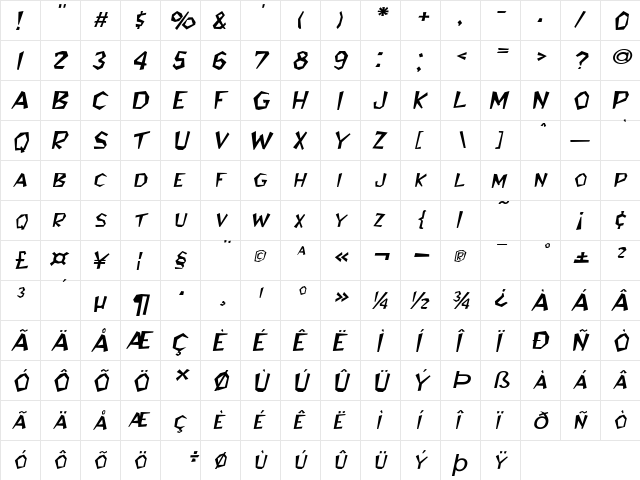
Jitter-Expanded Italic
Design Context for Jitter-Expanded Typeface
Jitter-Expanded is a composed and adaptable typeface that performs quietly and consistently across a wide range of design contexts. Its italic angle brings a sense of urgency and motion to the letterforms.
Pro Tip: Try Jitter-Expanded for annotation and caption copy alongside an upright companion — the contrast in angle creates a dynamic but ordered typographic system.